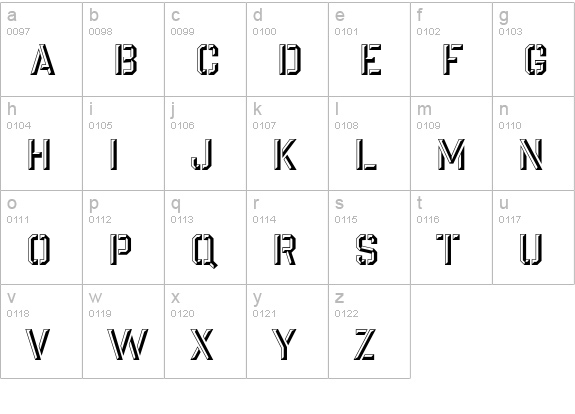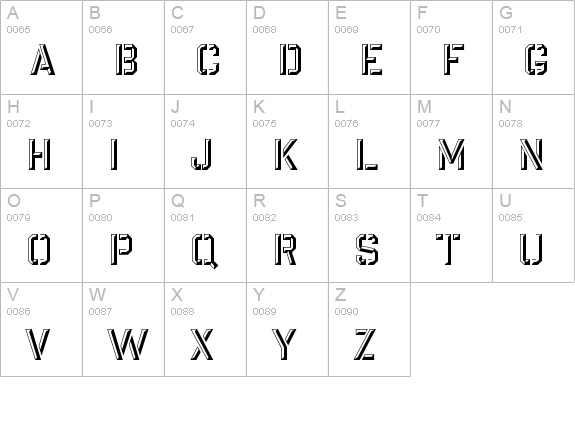
The Giant font is a bold and eye-catching typeface that commands attention with its larger-than-life presence. Perfect for making a statement in headlines, posters, or branding materials, this font is sure to leave a lasting impression. With its strong, thick strokes and unique character design, Giant stands out from the crowd and adds a touch of grandeur to any project. The best part? Giant font is available for free download at FontsMarket.com, making it easily accessible for designers and creatives looking to add a touch of grandeur to their work. Whether you're working on a bold advertising campaign or creating striking social media graphics, Giant font is sure to make a big impact. Download it today and elevate your designs to new heights with this impressive typeface.